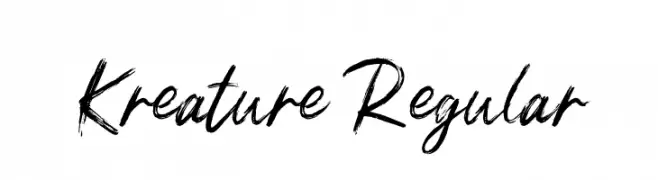
A bold, expressive brush script font with dynamic strokes and a handcrafted feel.
A bold, flowing script font with a dynamic, handwritten style.
A dynamic, brush-style font with expressive, hand-drawn strokes.